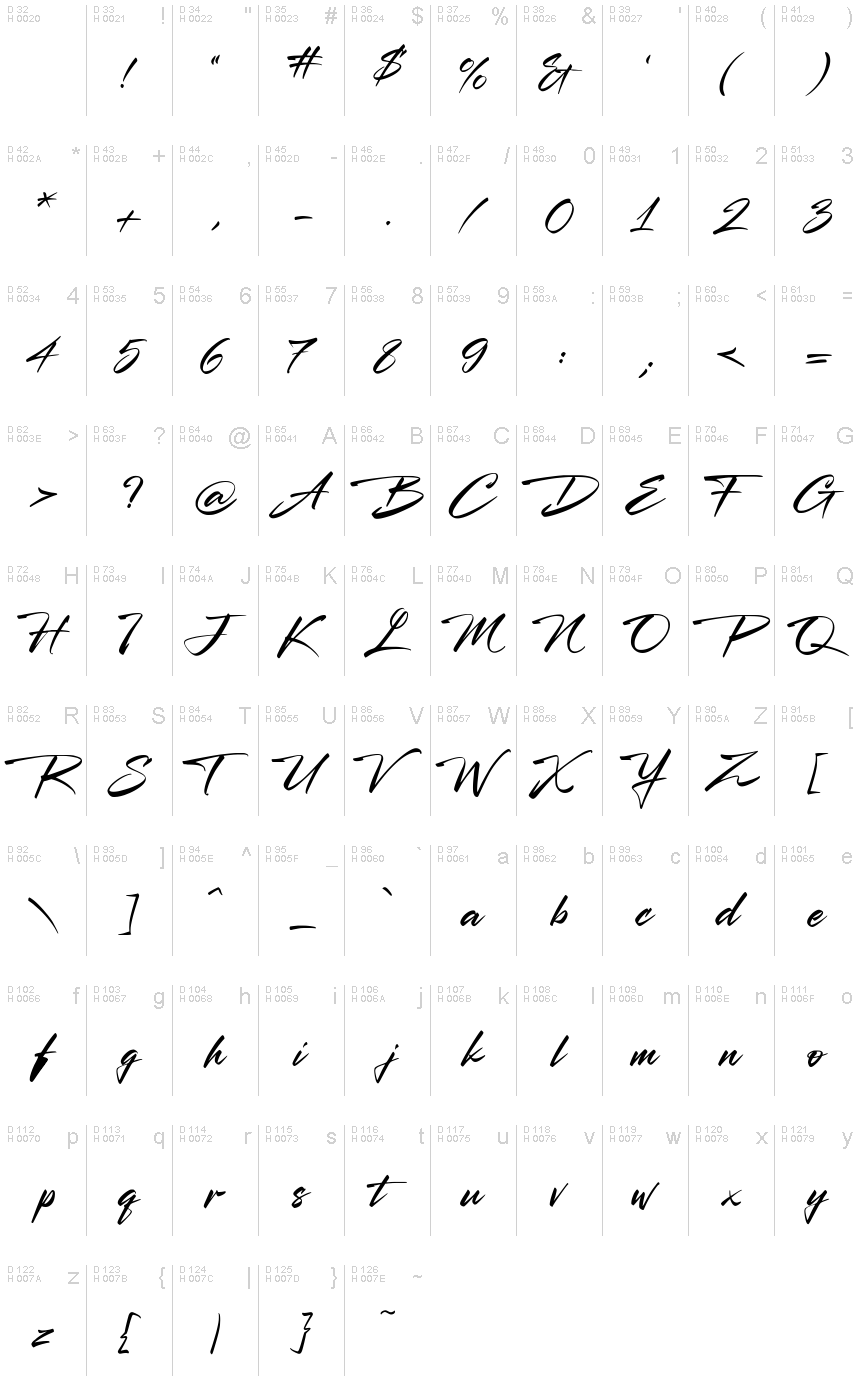
Barett Street
Barett Street, designed by Cat.B, is a handwritten font that exudes personality and charm. With its fluid, connected style, it captures the essence of natural penmanship while maintaining legibility and elegance. The aesthetic appeal of Barett Street lies in its balance between casual spontaneity and sophisticated grace, making it an excellent choice for projects that require a personal touch with a dash of refinement.
The versatility of Barett Street is evident in its potential applications: from wedding invitations and greeting cards to branding materials and book covers. This font's distinct flair can enhance the visual narrative of any creative endeavor seeking to convey authenticity and warmth. Its handwritten style ensures a welcoming presence on digital platforms as well, providing designers with an approachable typeface option that stands out amidst the plethora of digital fonts.